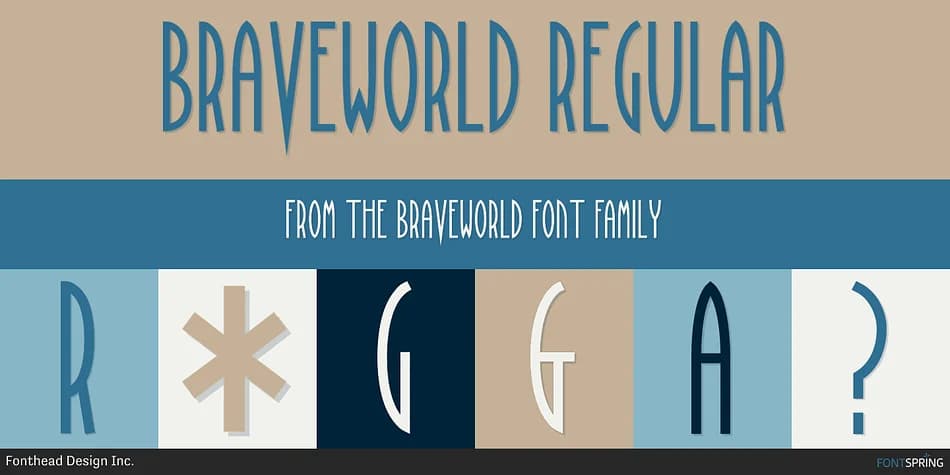
About BRAVEWORLD Font
BRAVEWORLD is a decorative font designed by Fonthead Design. BRAVEWORLD is a premium font β see the listing for pricing and license terms. Decorative fonts like BRAVEWORLD work best for logos, posters, packaging, and standout headlines.
BRAVEWORLD Font is a decorative font that shines as a display or heading face. Pair it with a clean sans-serif or serif font for body text β the contrast creates a clear hierarchy while the two styles stay balanced and easy to read.
BRAVEWORLD Font
BRAVEWORLD Font is a decorative typeface by Fonthead Design, ideal for logos, invitations, branding, and creative projects.